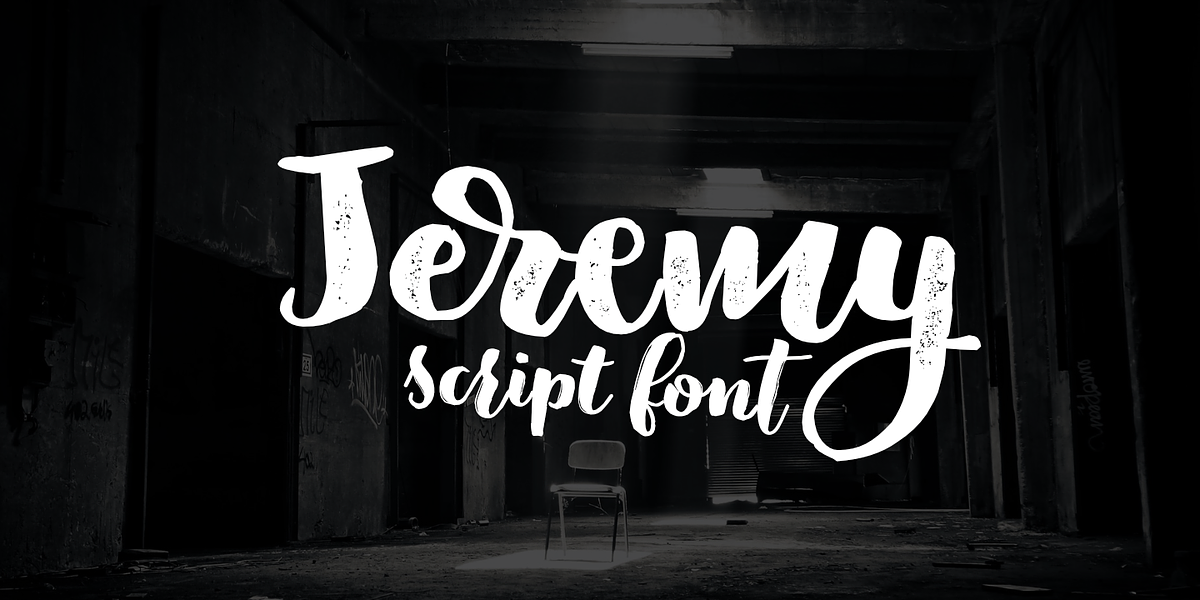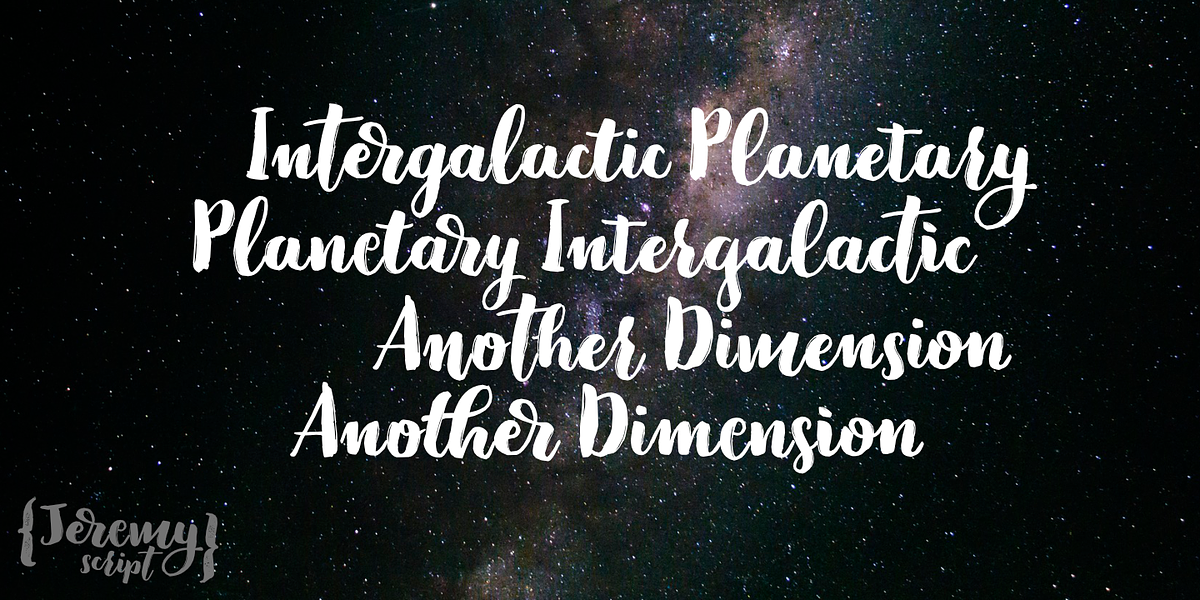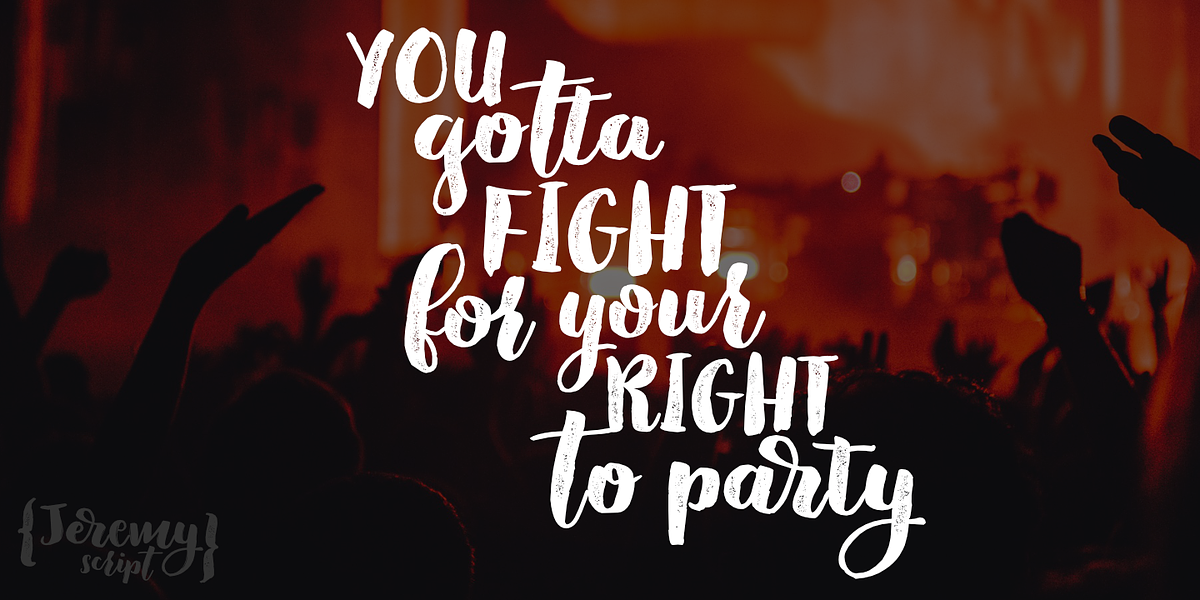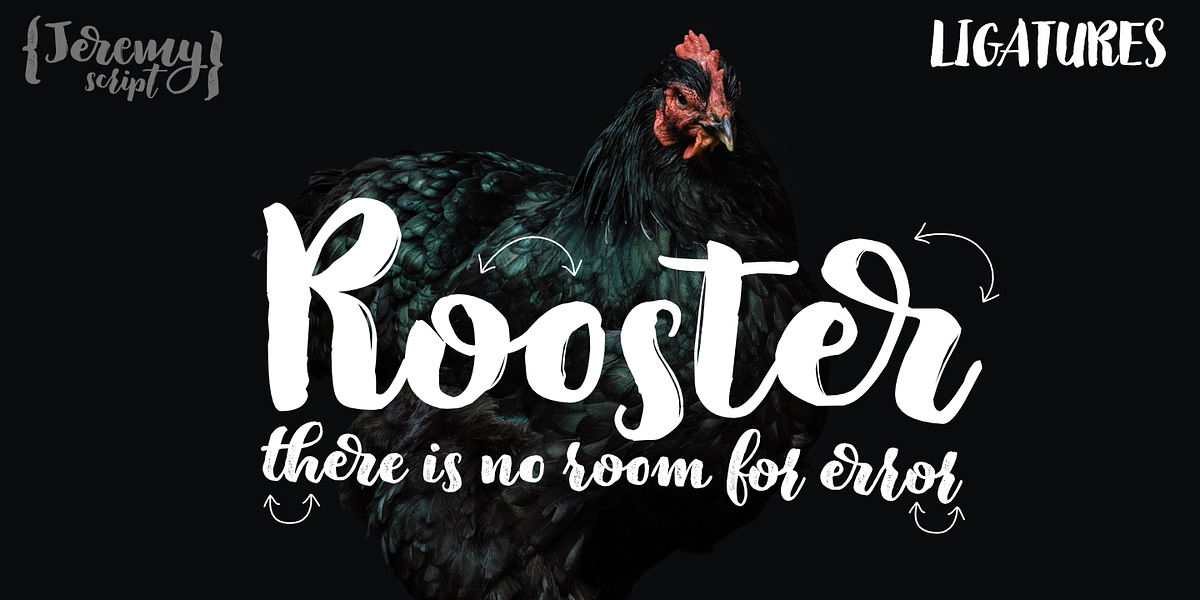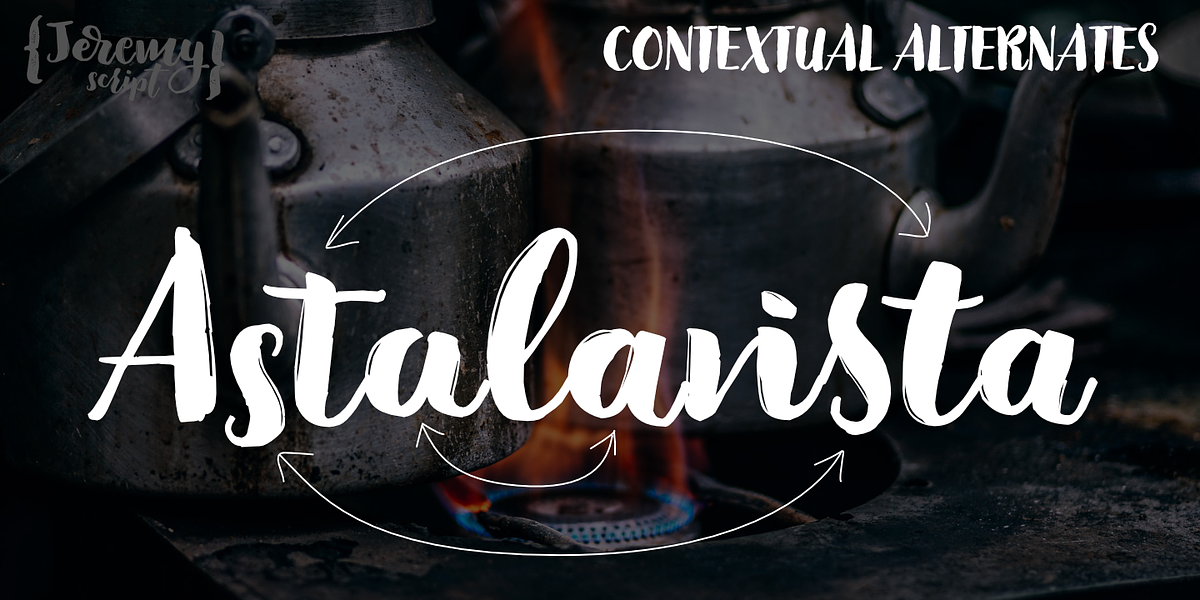
Jeremy
Jeremy is a casual hand script font characterized by its brush stroke style. It features ligatures and contextual alternates for lowercase letters, automatically switching between three variations in OpenType-compatible applications to create a more natural handwritten effect.